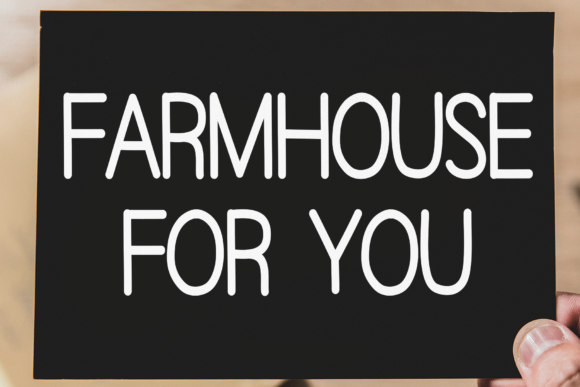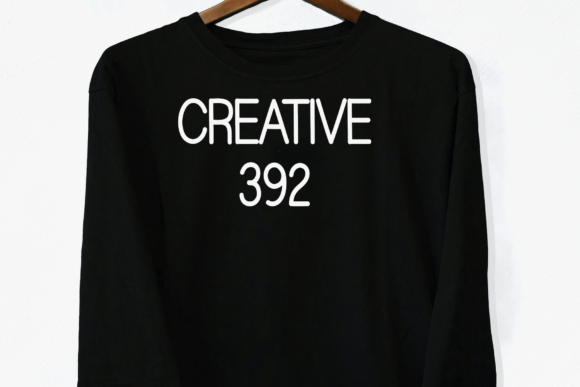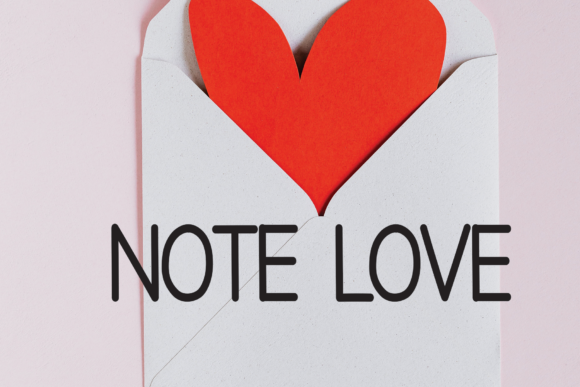
Introduction to Minimalist Home Font
Have you ever stared at a blank canvas, feeling the urge to create something beautiful, yet struggling to find the perfect design element to bring your vision to life? This is where the magic of fonts comes in, and for designers, the right font can be the difference between a good design and a great one. One such font that has been making waves in the design community is the Minimalist Home Font.
With its sweet and friendly handwritten style, the Minimalist Home Font is a versatile design resource that can elevate any creative project, from invitations to social media graphics. Its natural and unique aesthetic makes it an excellent choice for designers looking for a high-quality font that can add a personal touch to their work. Plus, with a transparent background, it’s easy to incorporate into any design without distractions.
Key Features of Minimalist Home Font
- High-quality, modern design suitable for various creative projects, including home decor and interior design.
- Features a transparent background, allowing for easy customization and seamless integration with any design.
- Designed to be versatile, with a clean and minimalist aesthetic that works well for a range of design applications.
Honest Review: Minimalist Home Font
I recently had the chance to work with the Minimalist Home Font and I’m excited to share my honest review with you. As a designer, I’m always on the lookout for high-quality design resources that can elevate my creative projects.
The Minimalist Home Font is a beautiful, clean font that’s perfect for designing a modern and minimalist aesthetic. Here are some things that work well:
- ✨ It has a transparent background, making it easy to use with any design element.
- ✨ It’s a high-quality font that’s suitable for both print and digital designs.
- ⚠️ It only comes in a few styles, which may not be enough for designers who need a wide range of options.
- ⚠️ It may not be suitable for designs that require a bold or dramatic font.
Overall, I’m really impressed with the Minimalist Home Font. It’s a great design resource that can add a touch of elegance and sophistication to any creative project. If you’re looking for a clean and modern font, I would definitely recommend checking it out.
Tips for Getting the Most Out of Minimalist Home Font
Use the Minimalist Home Font in combination with other design elements to create a cohesive and stylish design. Experiment with different font sizes, colors, and styles to find the perfect balance for your creative project. The font’s transparent background option allows for endless design possibilities.
The Minimalist Home Font is perfect for a variety of creative projects, including: home decor designs, interior design concepts, and lifestyle brand identities. Its clean and simple design makes it ideal for use in brochures, flyers, and business cards.